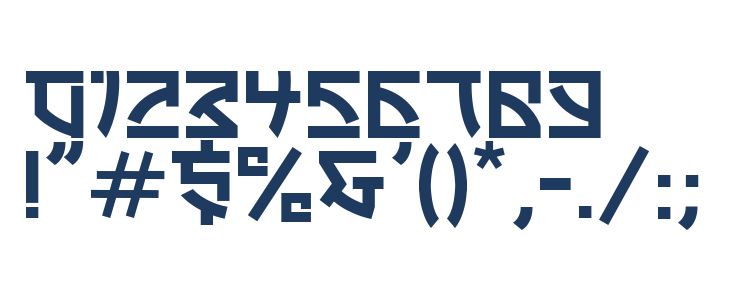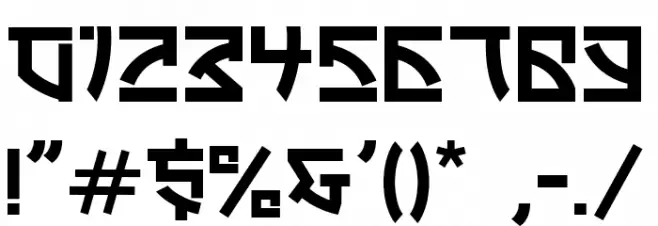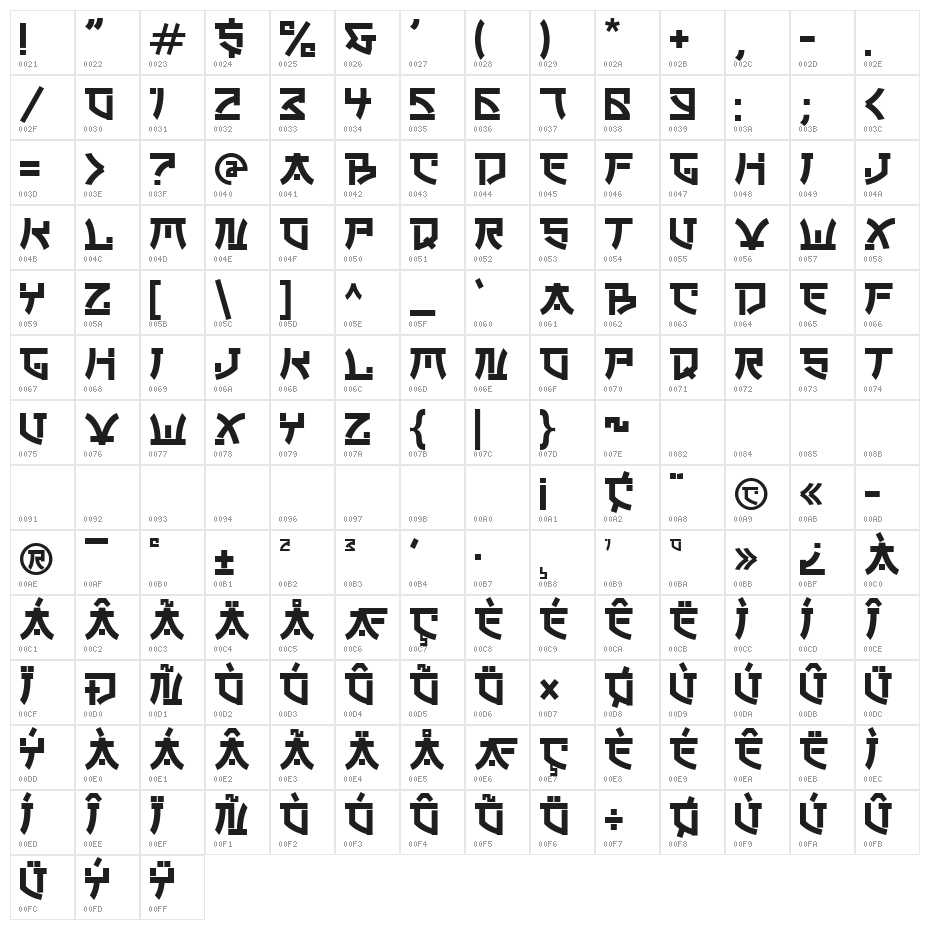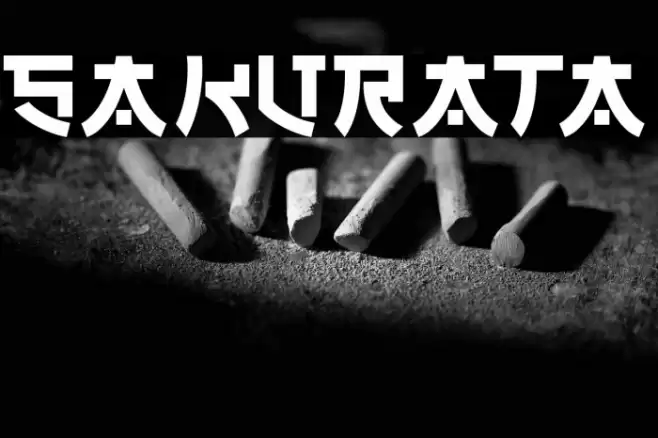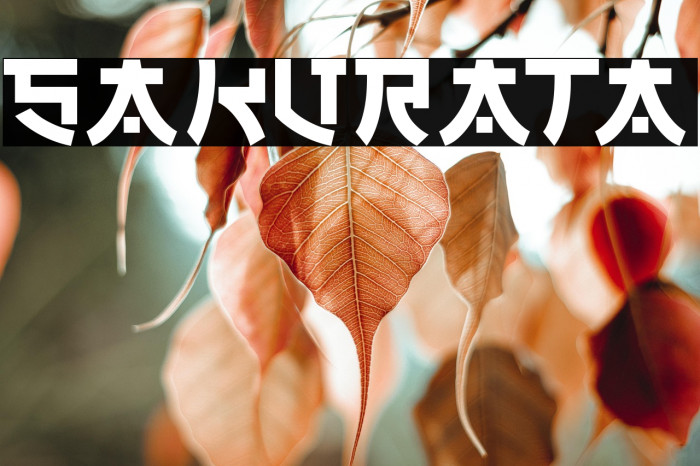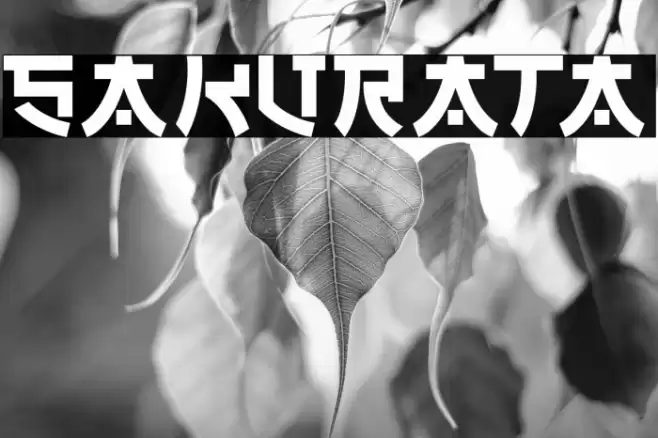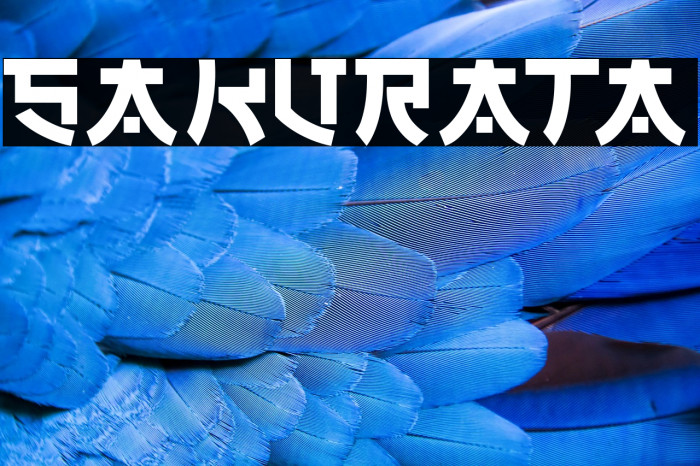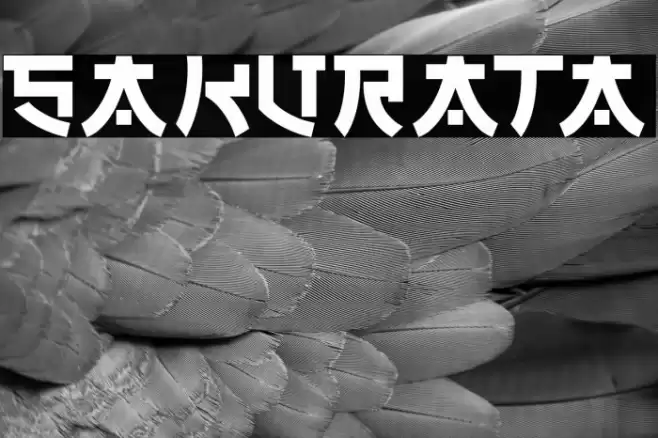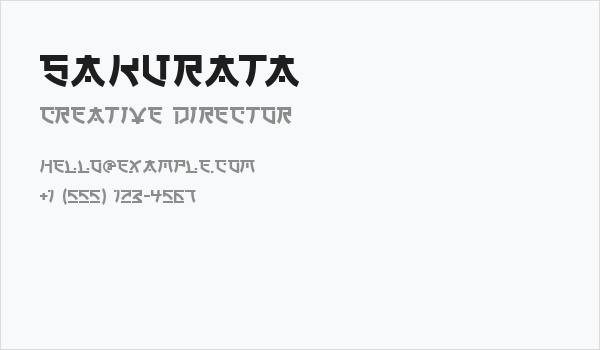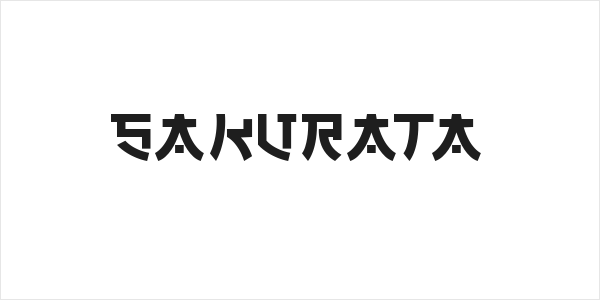
SAKURATA Font
SAKURATA Description
This font features a bold, geometric design with sharp angles and a futuristic aesthetic. The characters are constructed with thick, uniform strokes, giving them a strong presence. The angular shapes and consistent line thickness create a sense of modernity and innovation. The uppercase and lowercase letters maintain a cohesive style, while the numerals and special characters complement the overall design. The font's unique structure makes it stand out, suitable for projects that require a distinctive and eye-catching look.